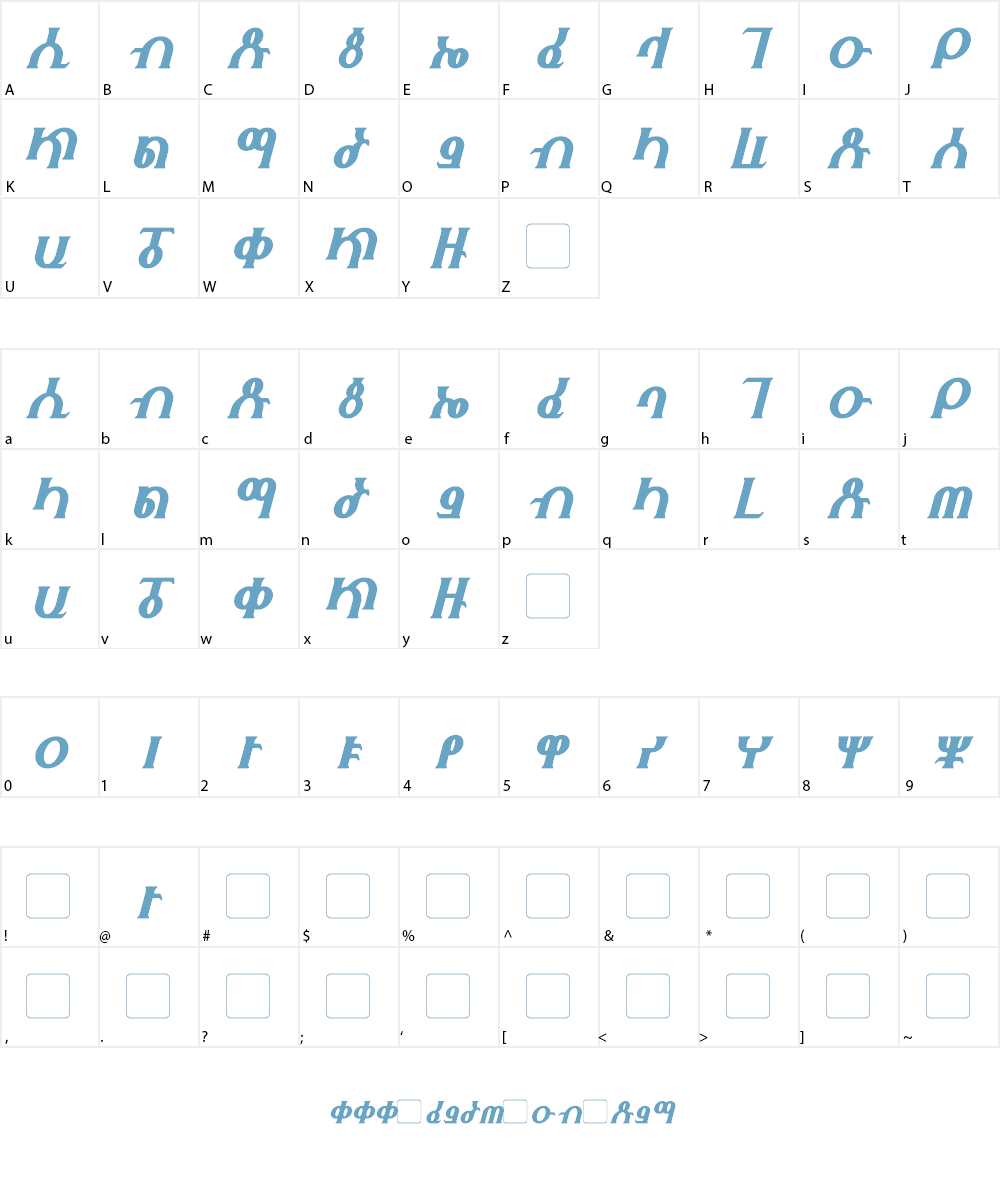
Fhokki is the ancient tribal trade script from Kenzer and Co’s Kingdoms of Kalamar campaign setting. This antique script face is designed a block-print version of the face presented within the campaign manual. Includes all canon characters, the Ahznomahni numerals and comes in regular and italic weights.